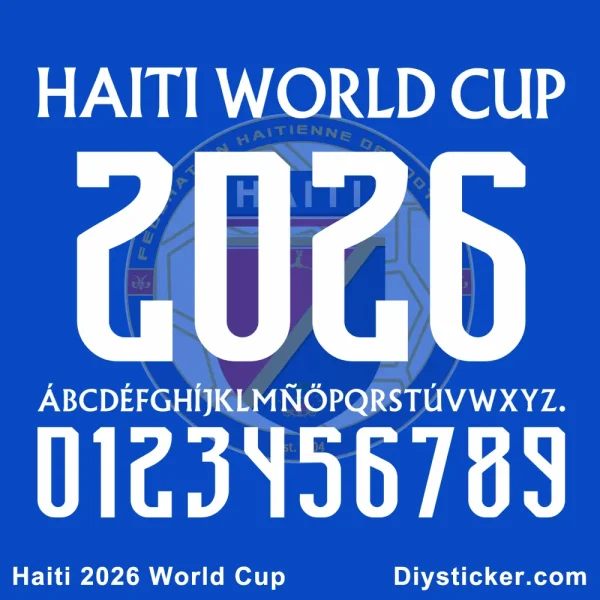
The Vibrant Spirit of Haiti: 2026 World Cup Typography
Celebrate Haiti’s journey to the world stage with our precisely engineered Haiti 2026 World Cup Font. As the national team showcases their pride in North America, you can now own the typography used on the official Haiti National Team kits (External Link). This font captures the bold, energetic aesthetic of Haitian football, making it a must-have for fans and designers alike.